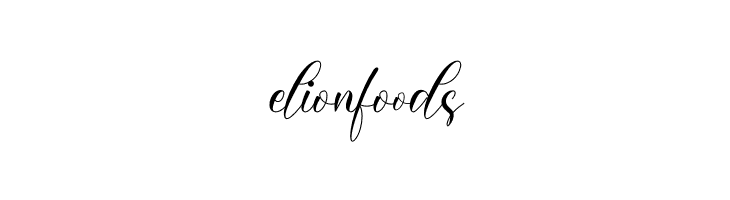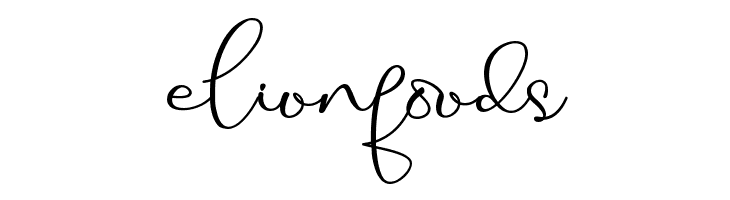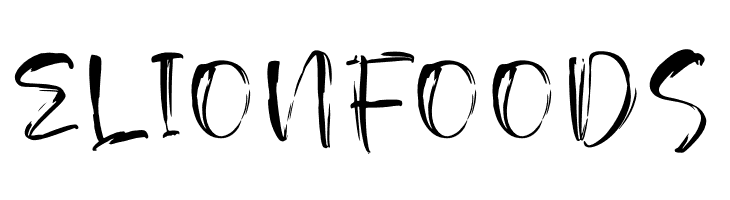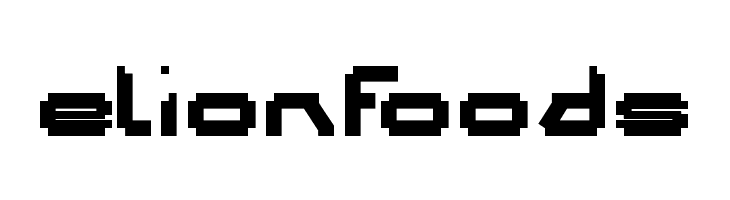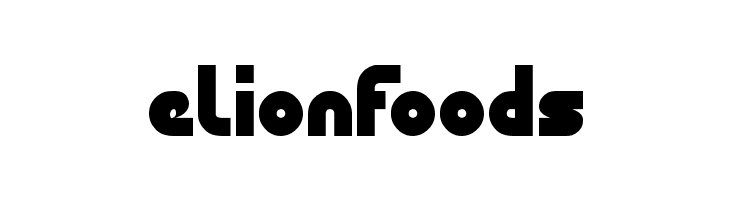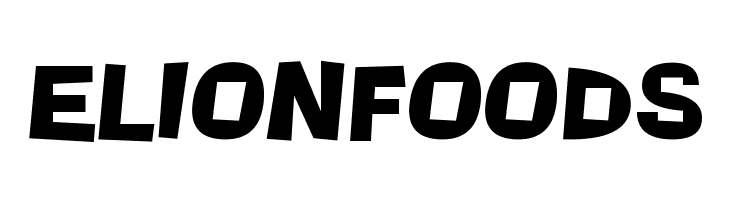
A lively and expressive script font with fluid, cursive strokes.
A playful and quirky font with rounded and angular elements.
A bold, playful font with rounded, lively characters.
An elegant script font with flowing, cursive strokes and a sophisticated style.
A bold, brush-style font with dynamic, handwritten strokes.
A distressed, grungy font with a textured, artistic style.
A bold, geometric font with strong, block-like characters.
Casual handwritten script font.
A bold, dynamic font with a slight italic slant, perfect for impactful designs.